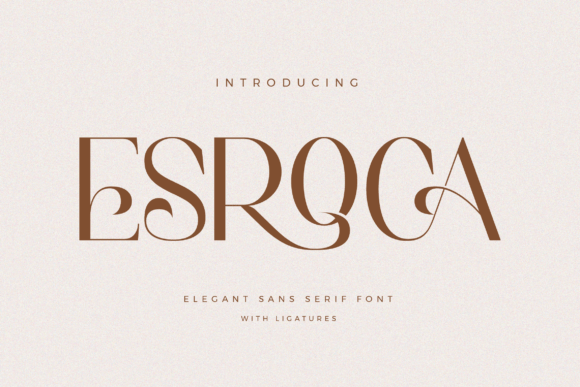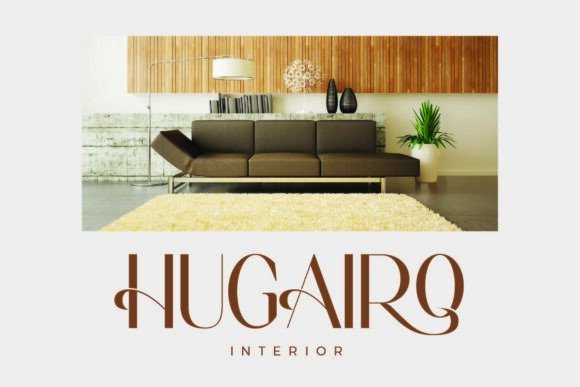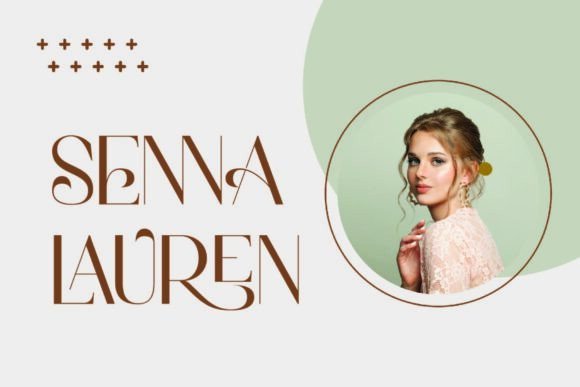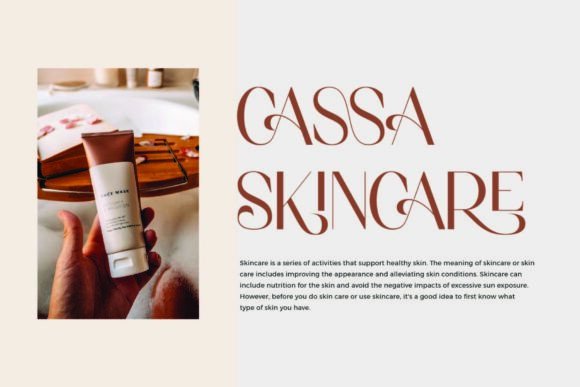
Esroca Font: Elegant Sans Serif for Modern Logo Design & Branding
About the Esroca Font
The Esroca Font is here to transform your projects with its distinctive character and style. Esroca Sans Font Typeface inspired by the famous minimalist logo perfect for the purposes of designing templates, brochures, videos, advertising branding, logos, invitation, layout design, elegant crafting, beauty design and other.
Esroca Sans excels as a headline font for projects requiring a clean, modern aesthetic. Its strength lies in branding applications, logos, and short-form text within posters or advertising materials. It’s less suitable for body text or UI elements due to its limited x-height and potential for reduced readability in large blocks of text.
The font possesses a bold yet elegant personality, lending itself well to sophisticated brands in sectors like technology, fashion, or luxury goods. Consider pairing Esroca with a neutral sans-serif like Open Sans for body copy or a subtle serif like Merriweather for a touch of classic elegance to balance its modern edge.
For a more playful contrast, a geometric sans-serif such as Futura could be used. Avoid pairing with overly decorative scripts, which might clash with Esroca’s minimalist nature.